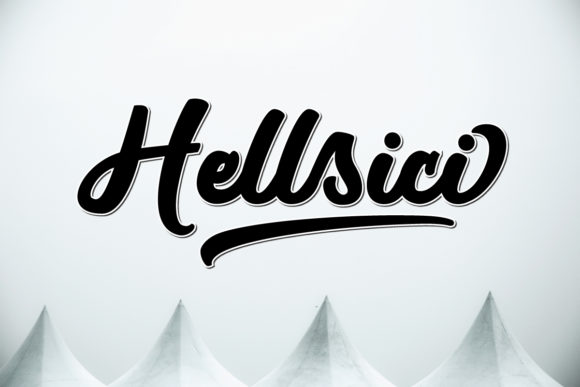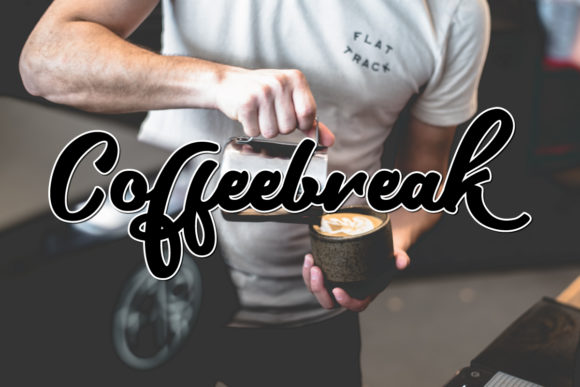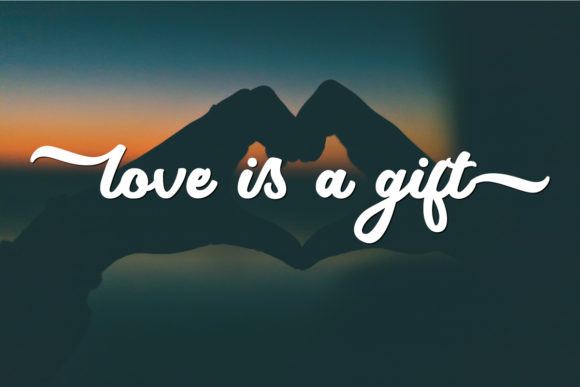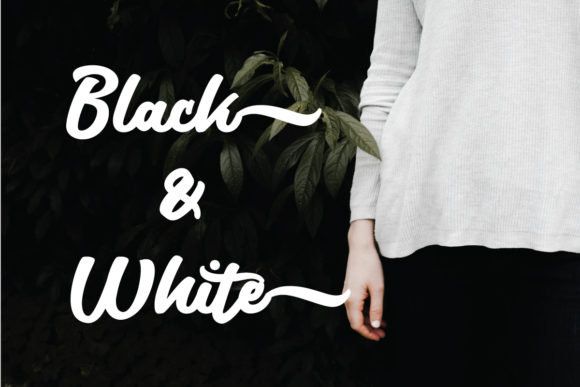
Hellsici Font
Hellsici is a playful and elegant handwritten font with a delicate twist. This unique typeface will turn any crafts project into an eye catcher!